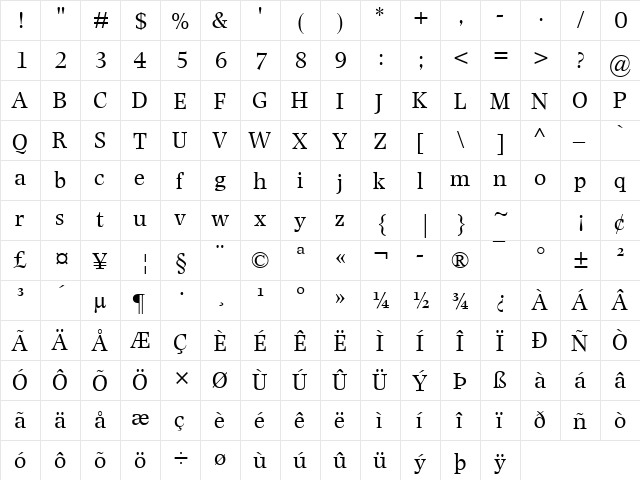
Photina MT Regular
Design Context for Photina MT Typeface
Photina MT offers clean, dependable letterforms without strong stylistic allegiance, making it a practical choice for designers who need flexibility.
Pro Tip: Use Photina MT in both headline and body roles to test its range before committing to a single application.